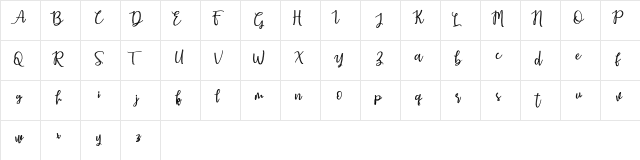
Earcy Night Regular
Design Context for Earcy Night Typeface
Earcy Night is a composed and adaptable typeface that performs quietly and consistently across a wide range of design contexts.